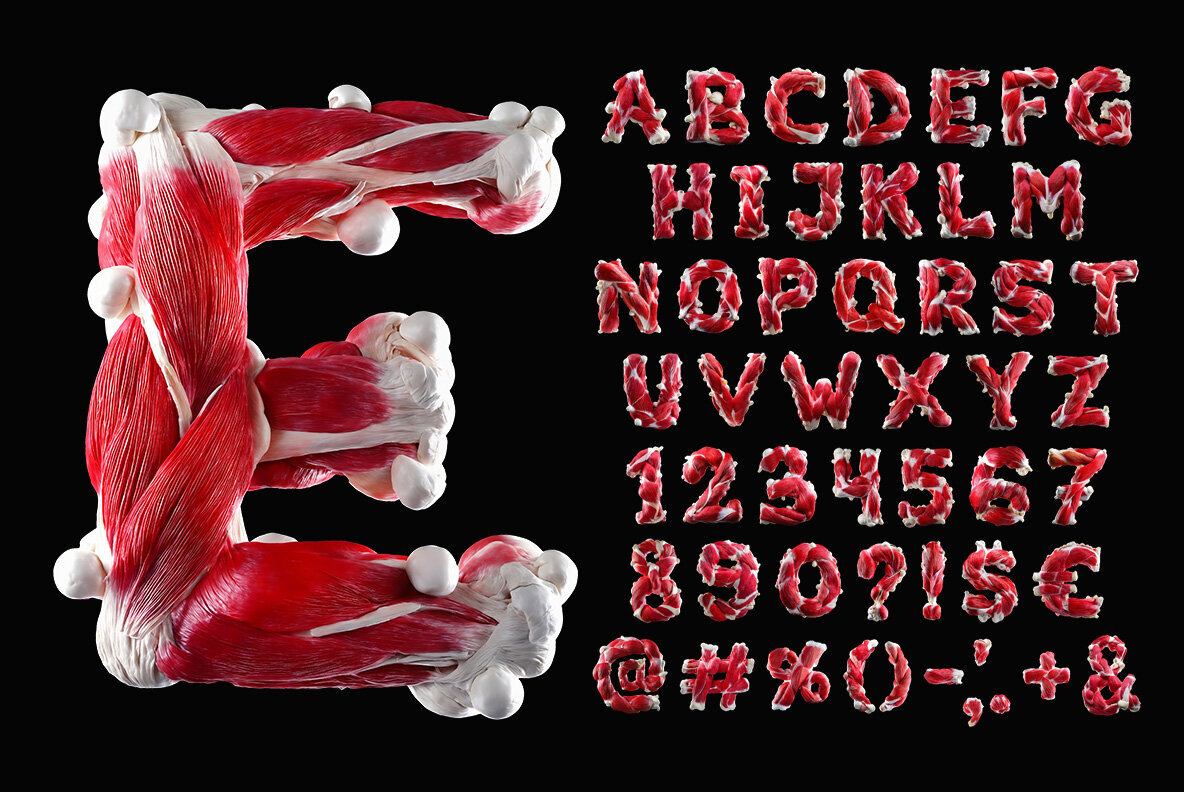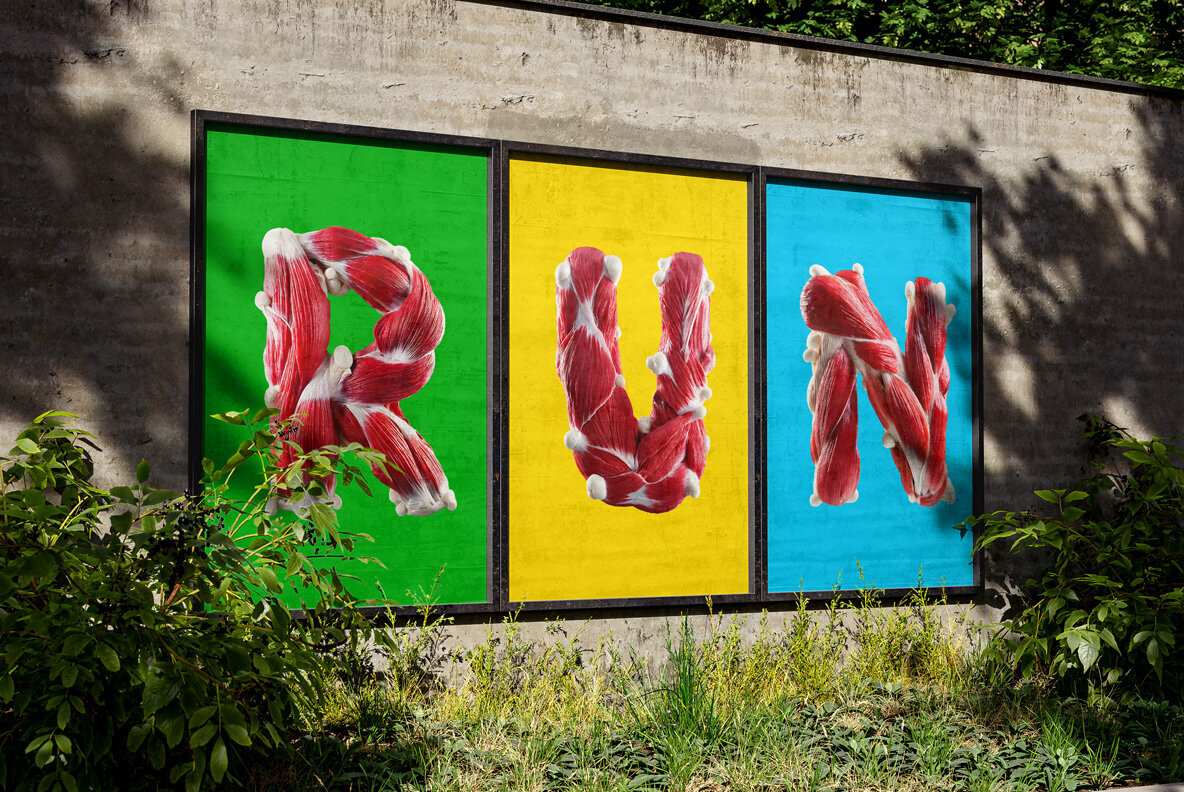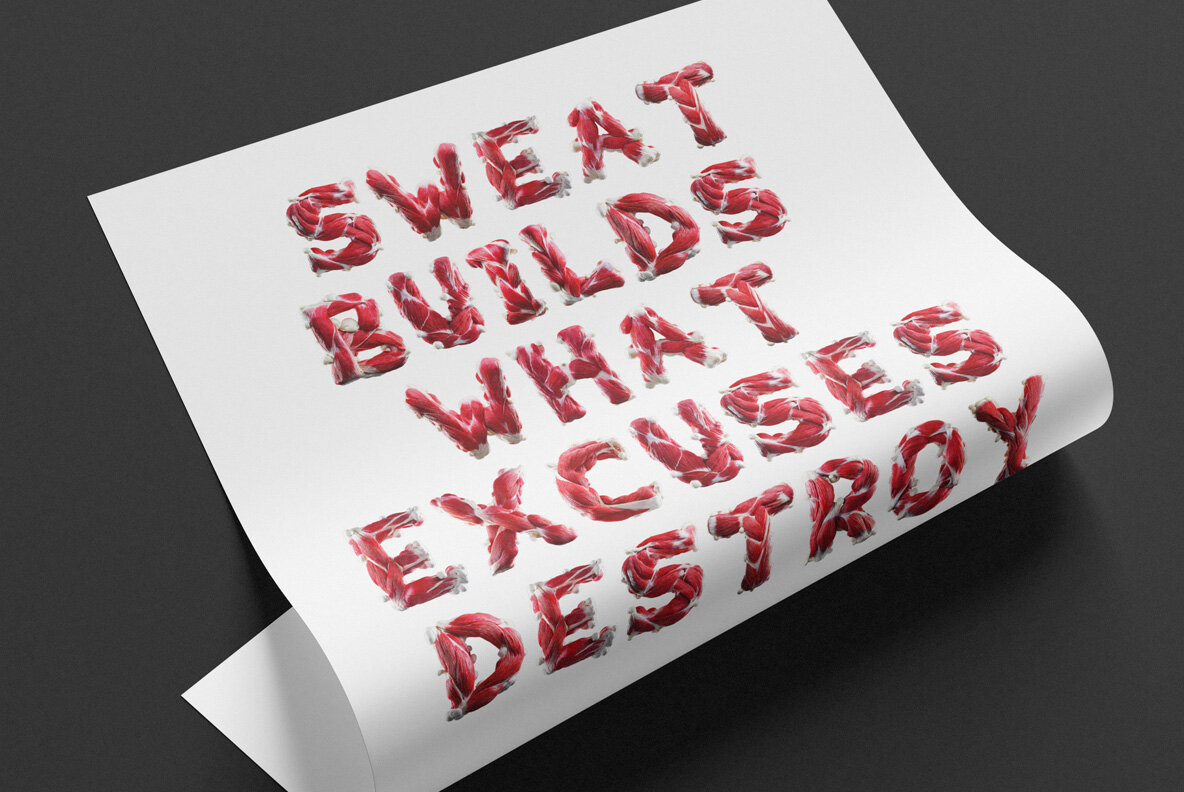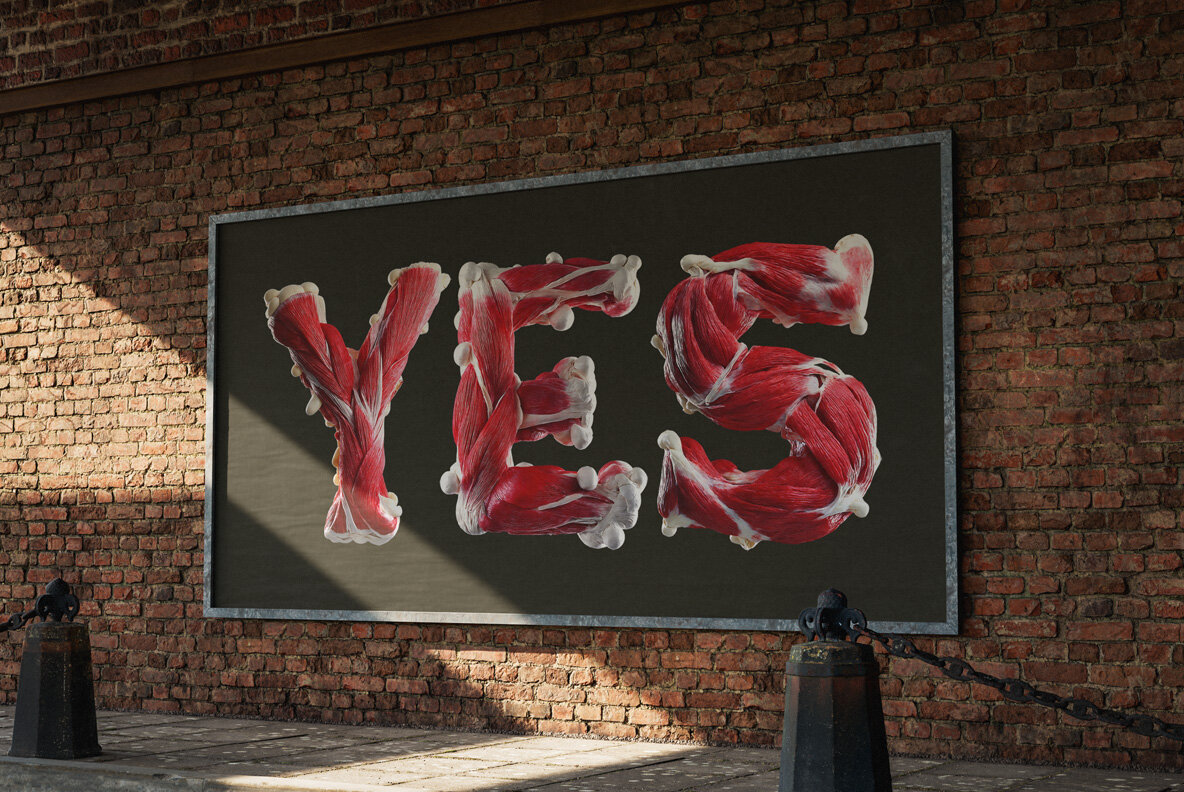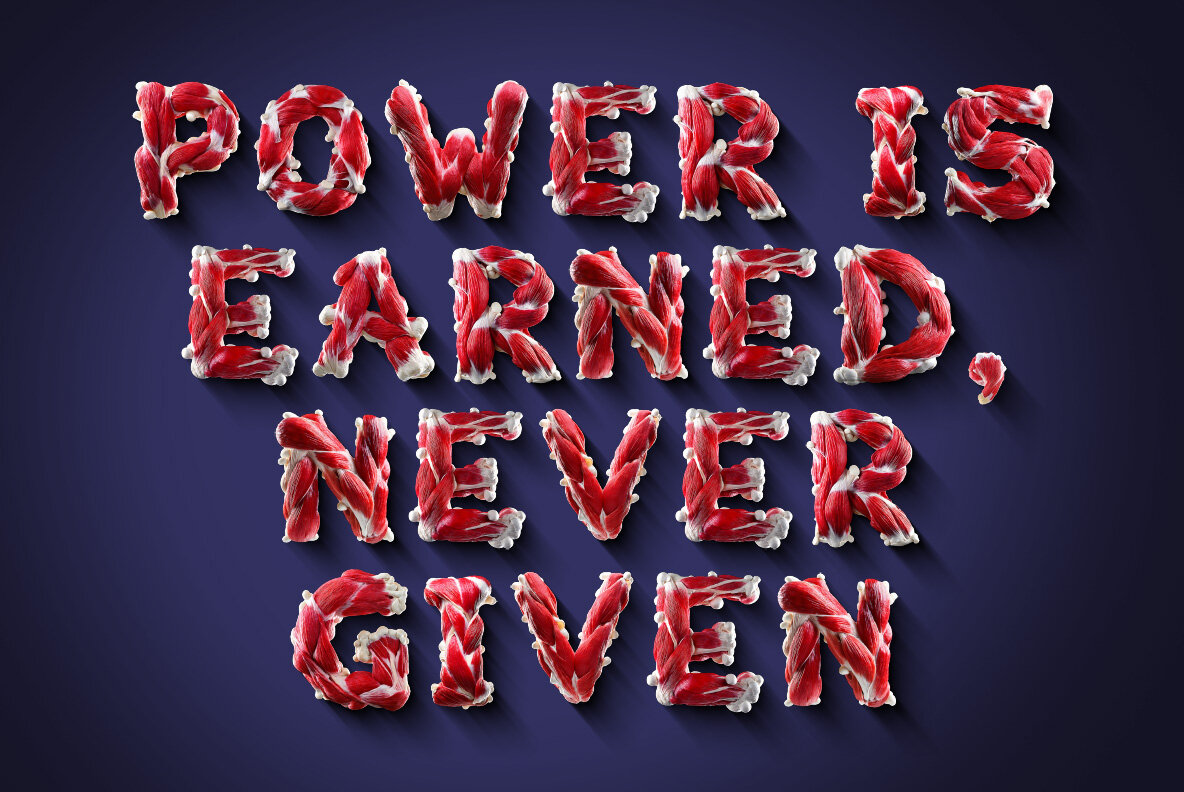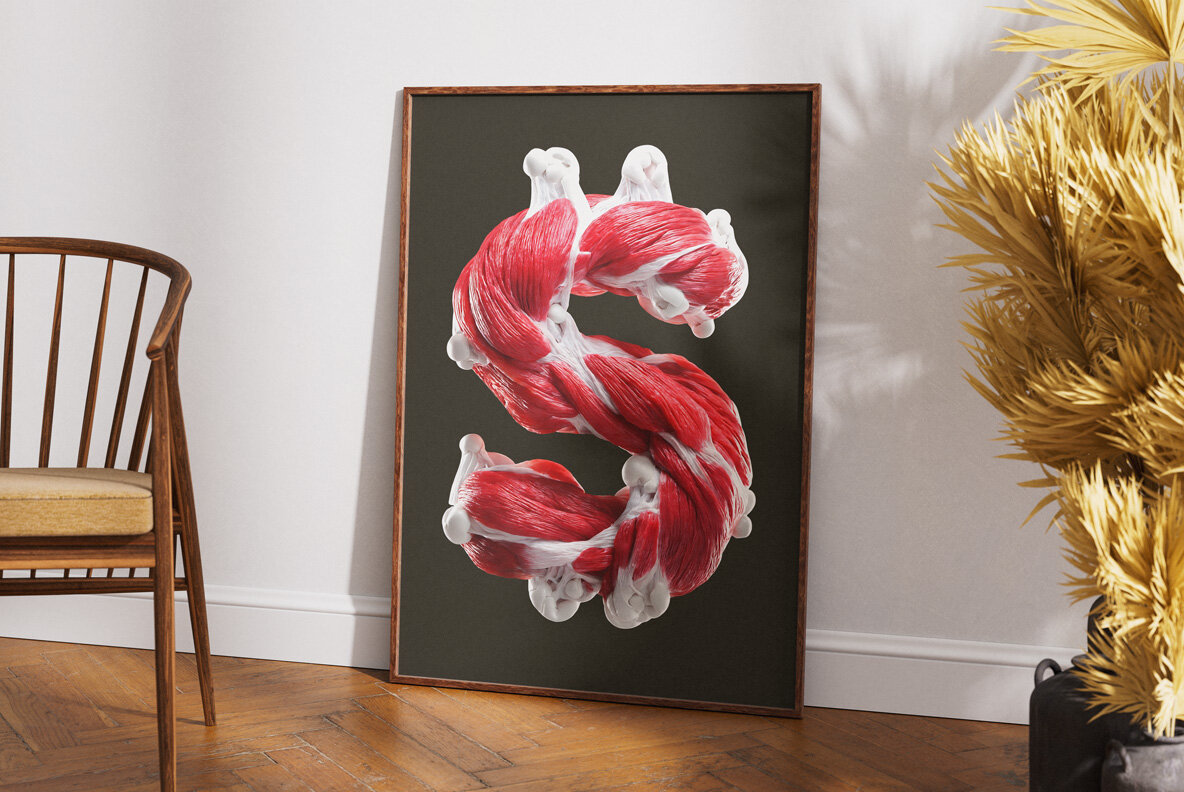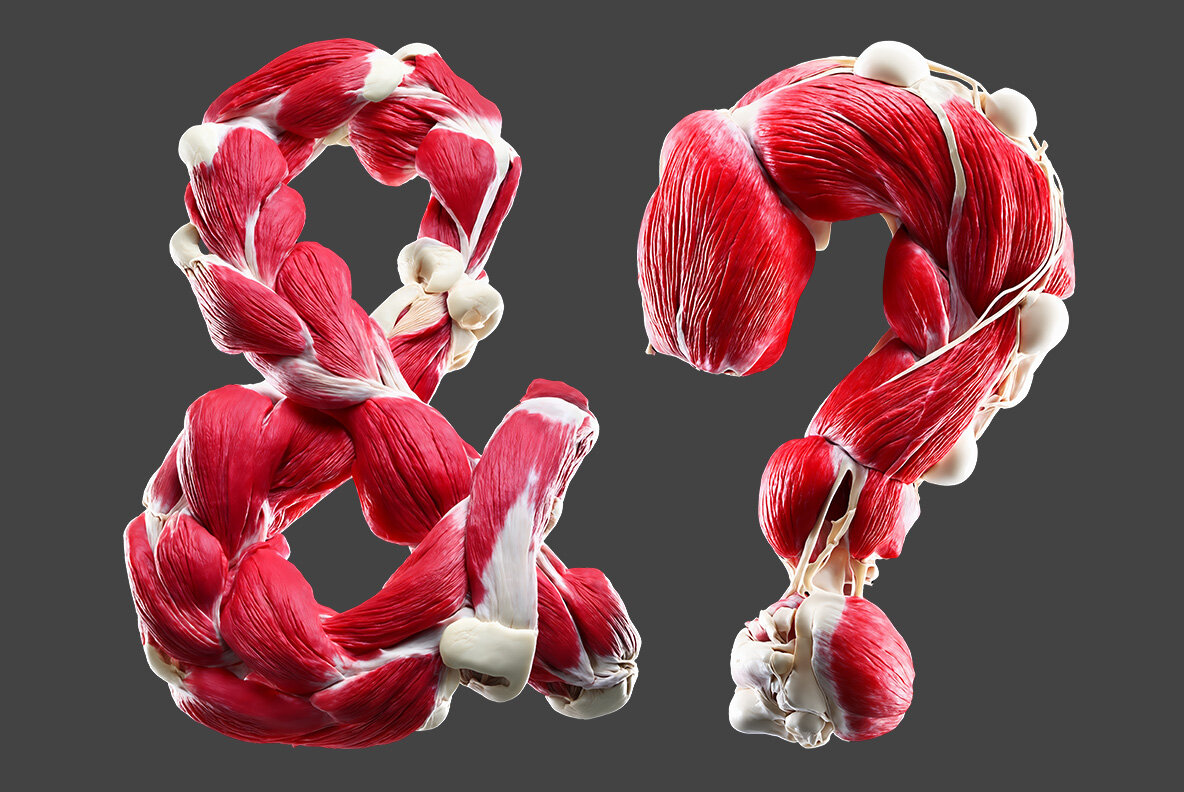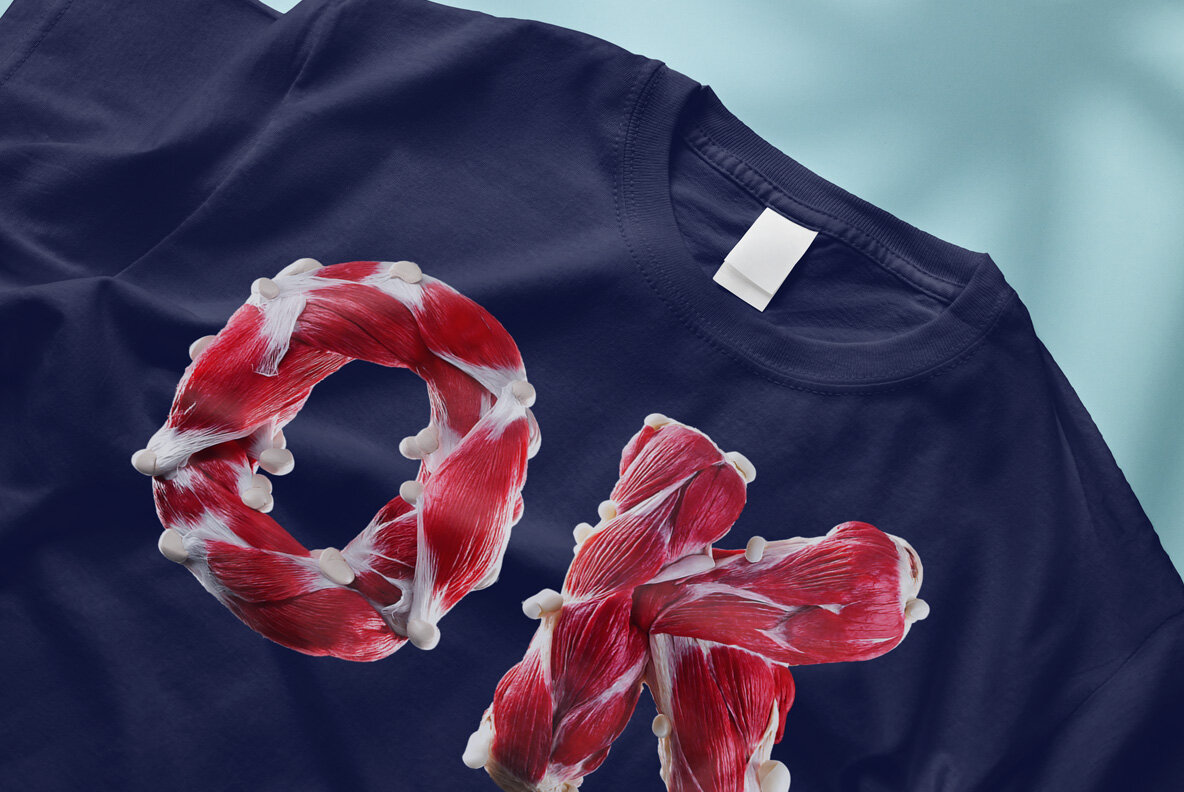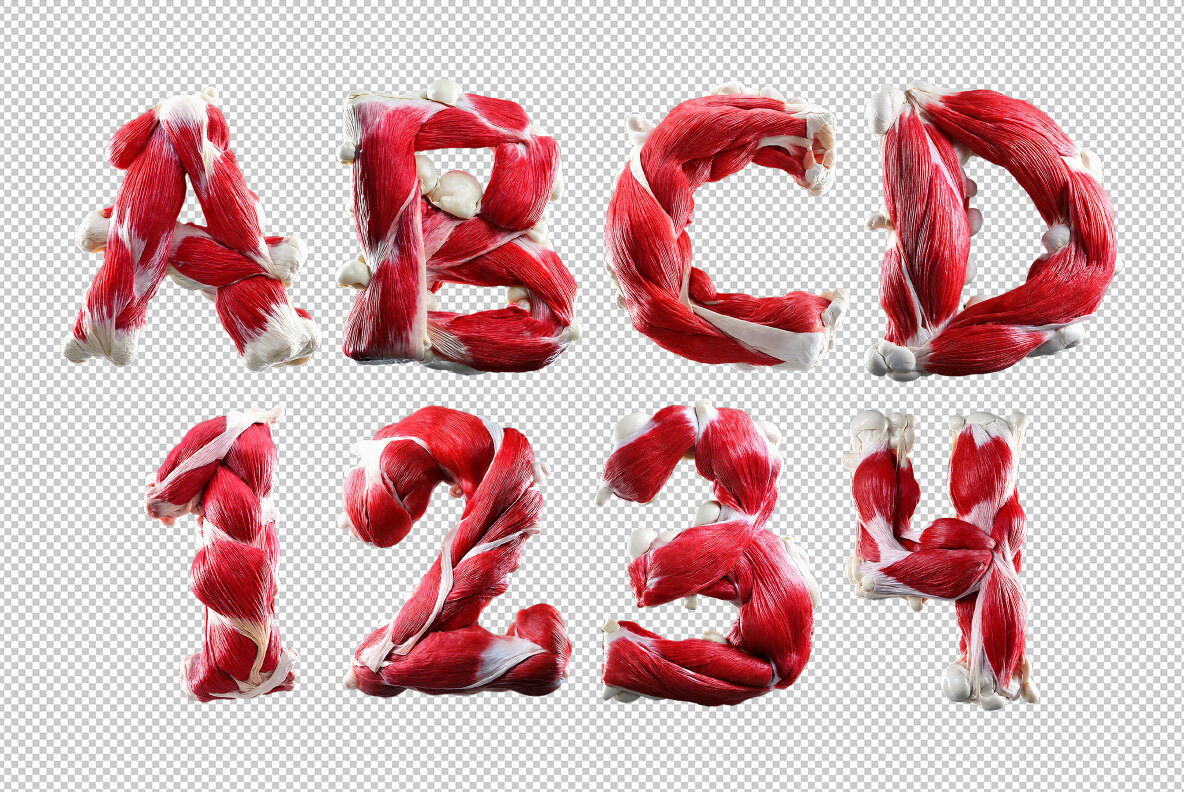
Muscles Font brings a powerful, bold aesthetic to your design projects, with each character meticulously crafted to resemble lifelike muscles. This unique typeface captures the essence of strength and fitness, showcasing iconic muscle groups like triceps, deltoids, and glutes. Ideal for fitness brands, gym advertisements, and any endeavor highlighting power and resilience, Muscles Font transforms text into a dynamic display of energy and determination.
This high-definition OpenType font includes uppercase letters, numerals, and basic punctuation. The characters are vividly presented in a color OpenType format, compatible with applications supporting color bitmap fonts, like Photoshop and Illustrator. Additionally, each letter is provided as an individual PNG file on a transparent background, with a high resolution of 4000x4000 pixels, ensuring compatibility with all graphic software. The downloadable package includes 52 files comprising all letters and numerals. While extended punctuation and language support aren't embedded in the font files, these elements are available as separate PNG files for manual integration.